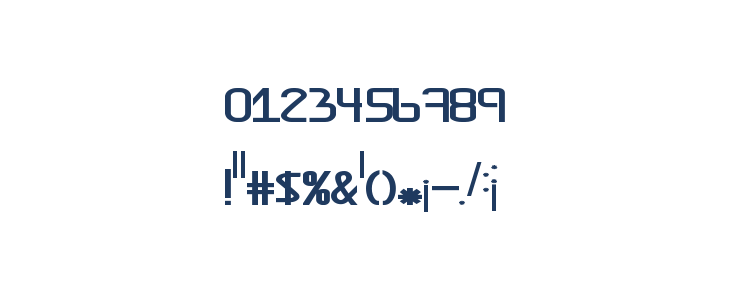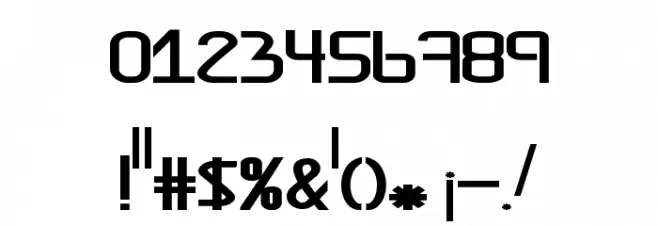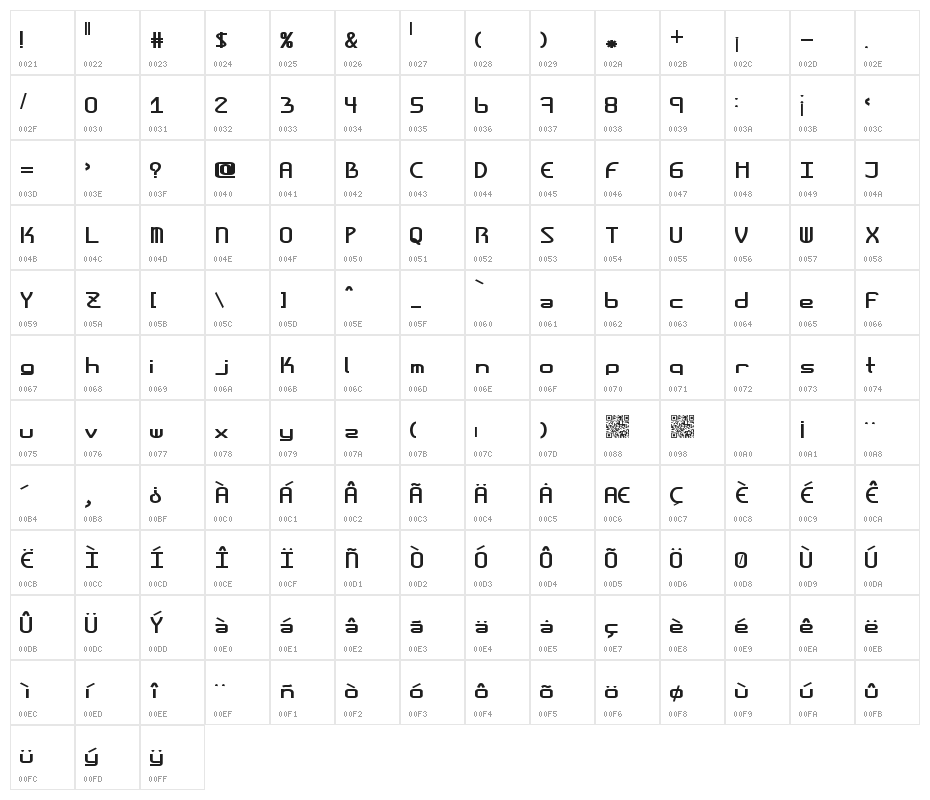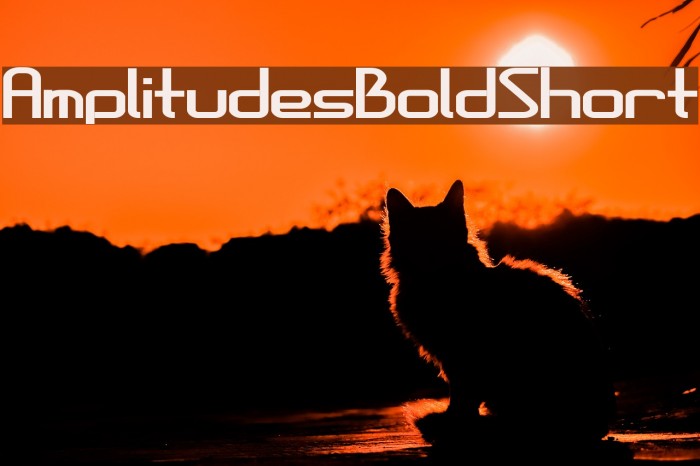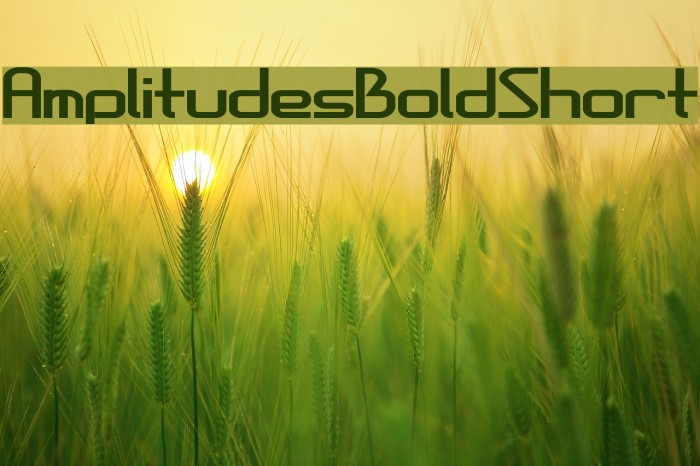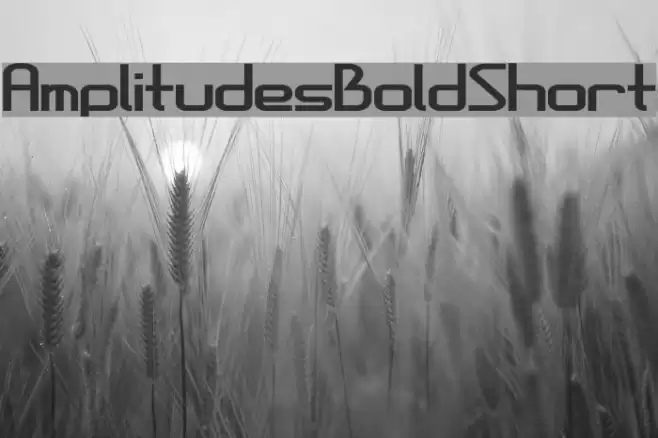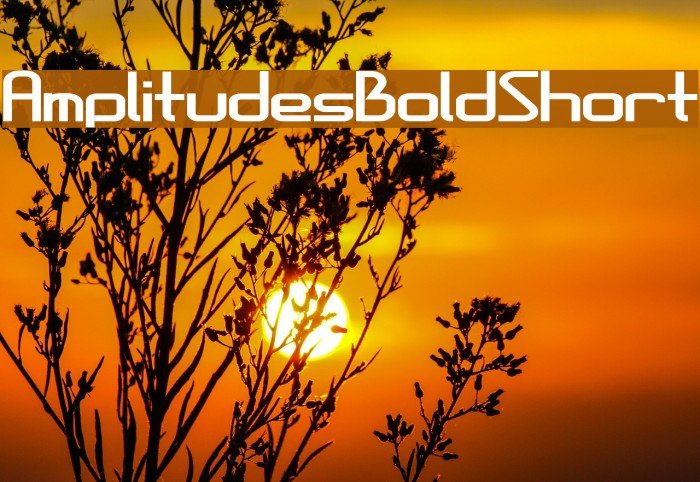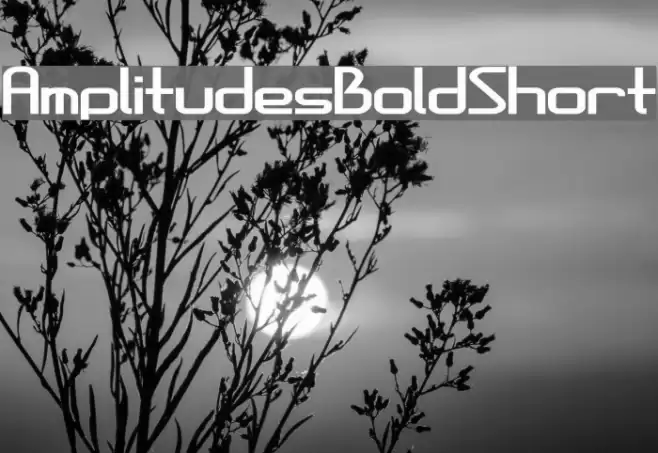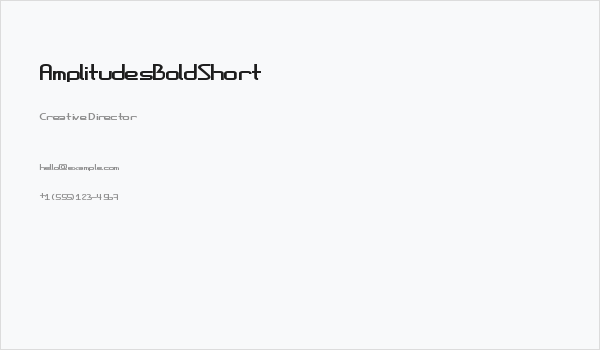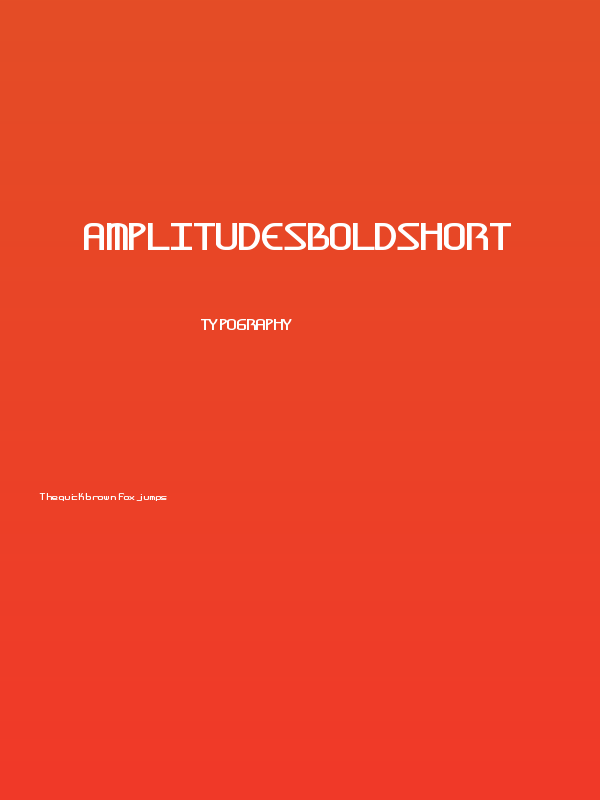
AmplitudesBoldShort Font
AmplitudesBoldShort Description
This font features a bold and geometric design with a modern flair. The characters are constructed with clean, straight lines and sharp angles, giving it a futuristic and digital appearance. The uppercase and lowercase letters maintain a consistent height, contributing to a uniform and structured look. The numbers and special characters follow the same design principles, ensuring a cohesive style throughout. The font's boldness makes it stand out, while the geometric shapes add a unique touch that is both eye-catching and versatile.
| Use Case | Headlines, Logos, Digital Media |
| Proposed Projects | Ideal for technology branding, digital media, futuristic designs, and modern advertising campaigns. |